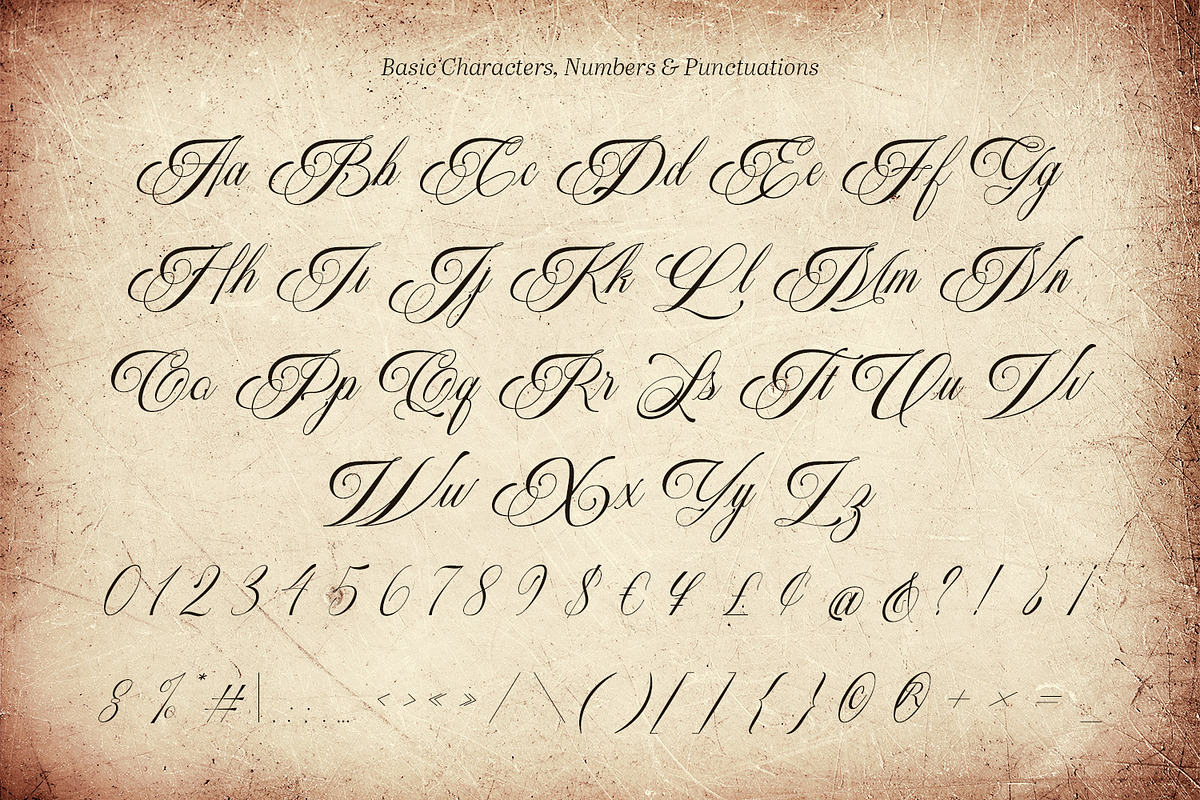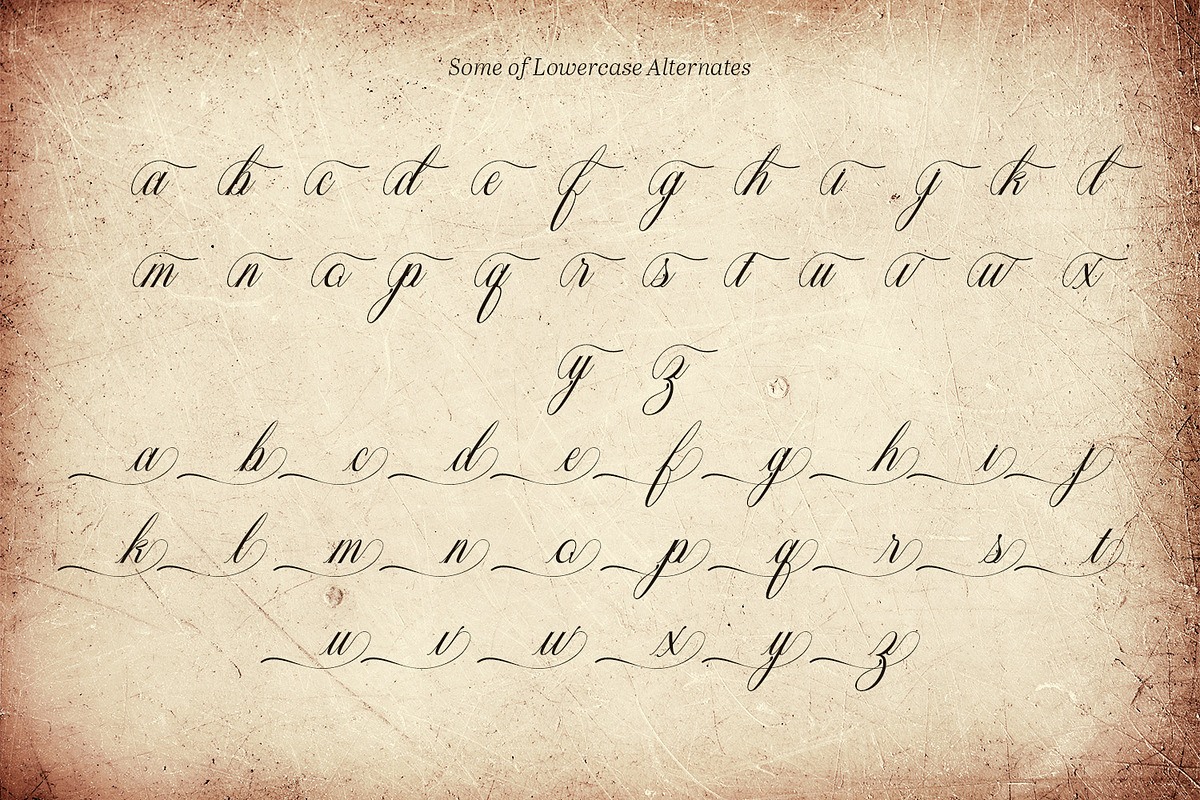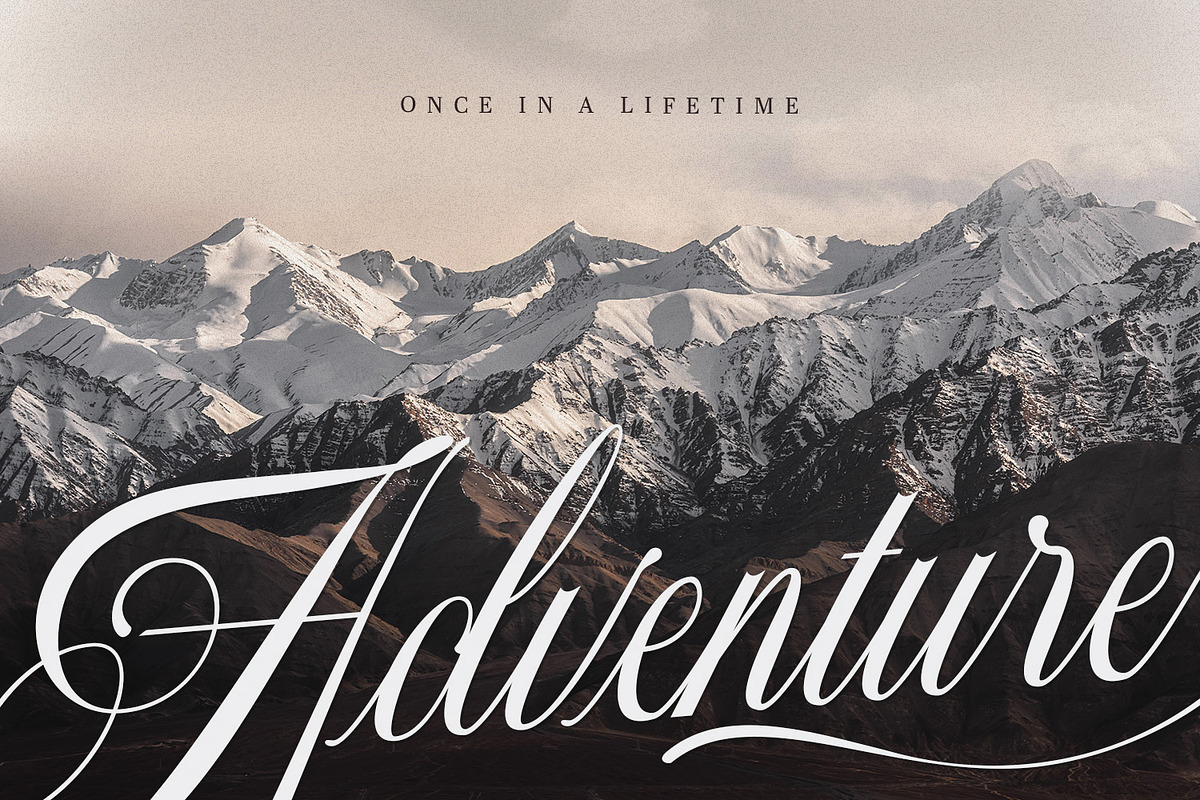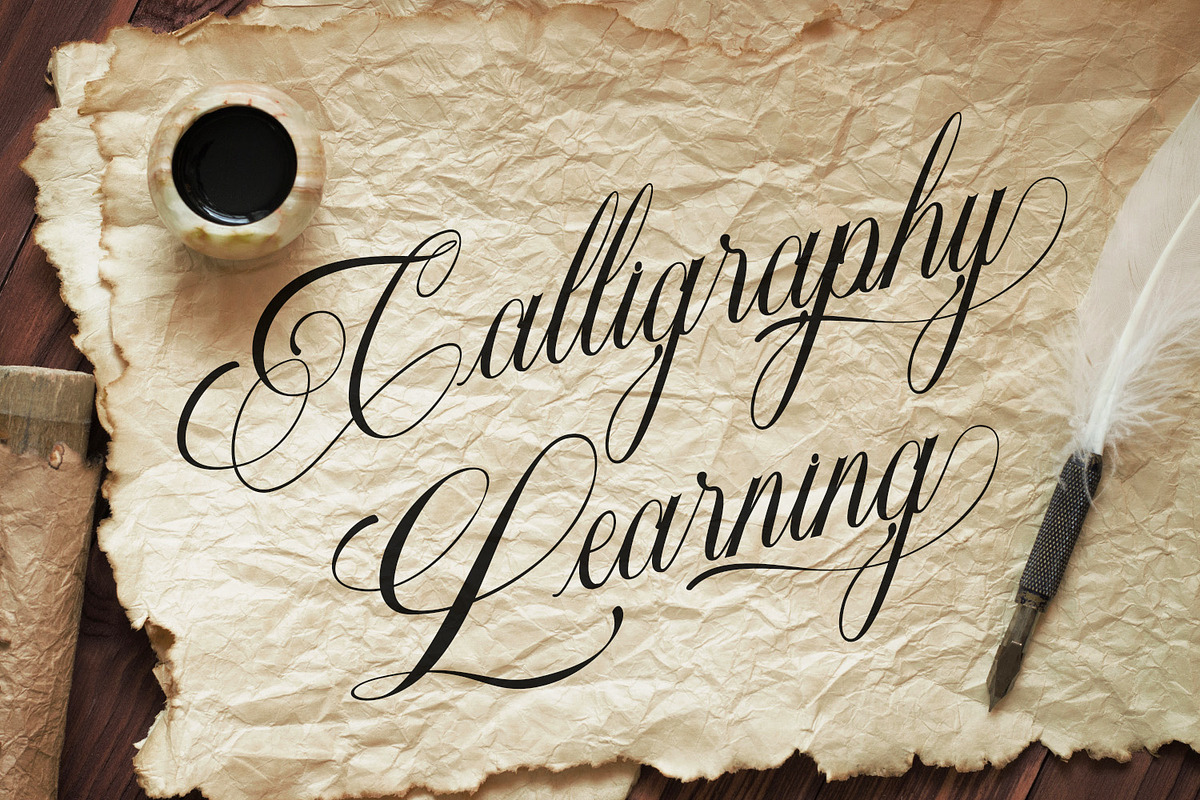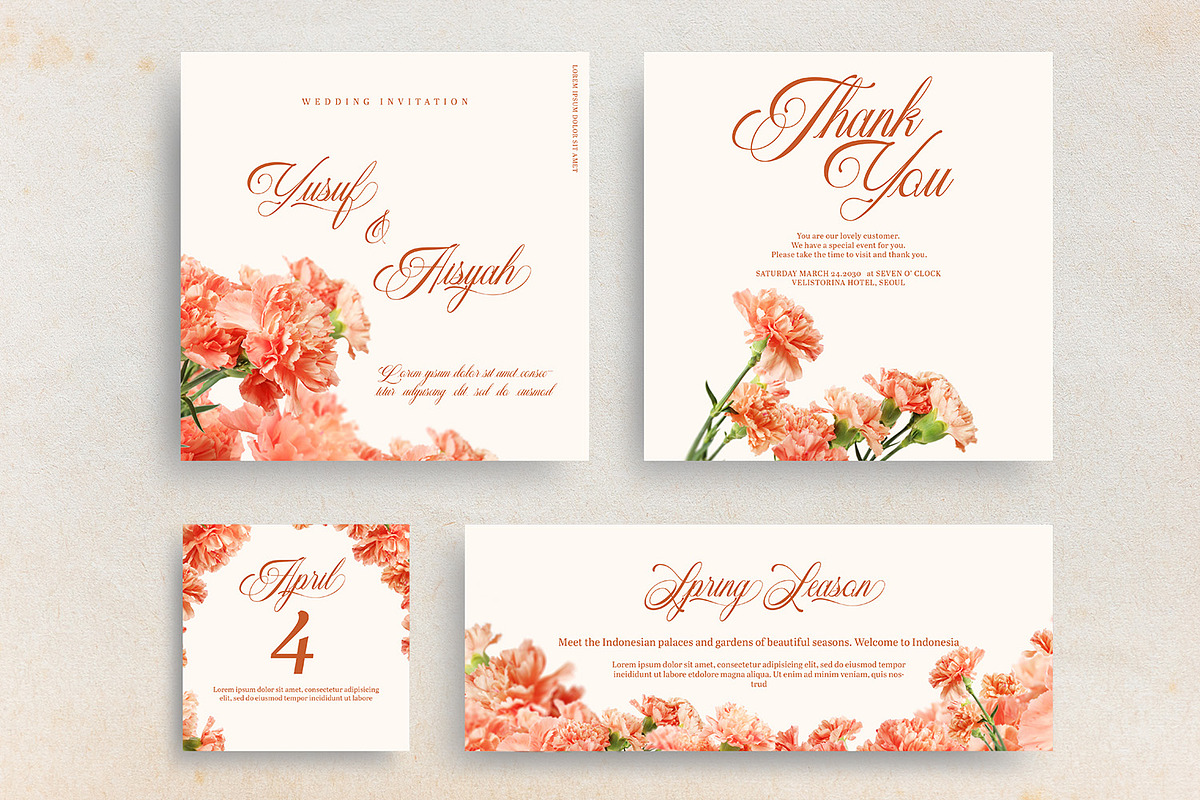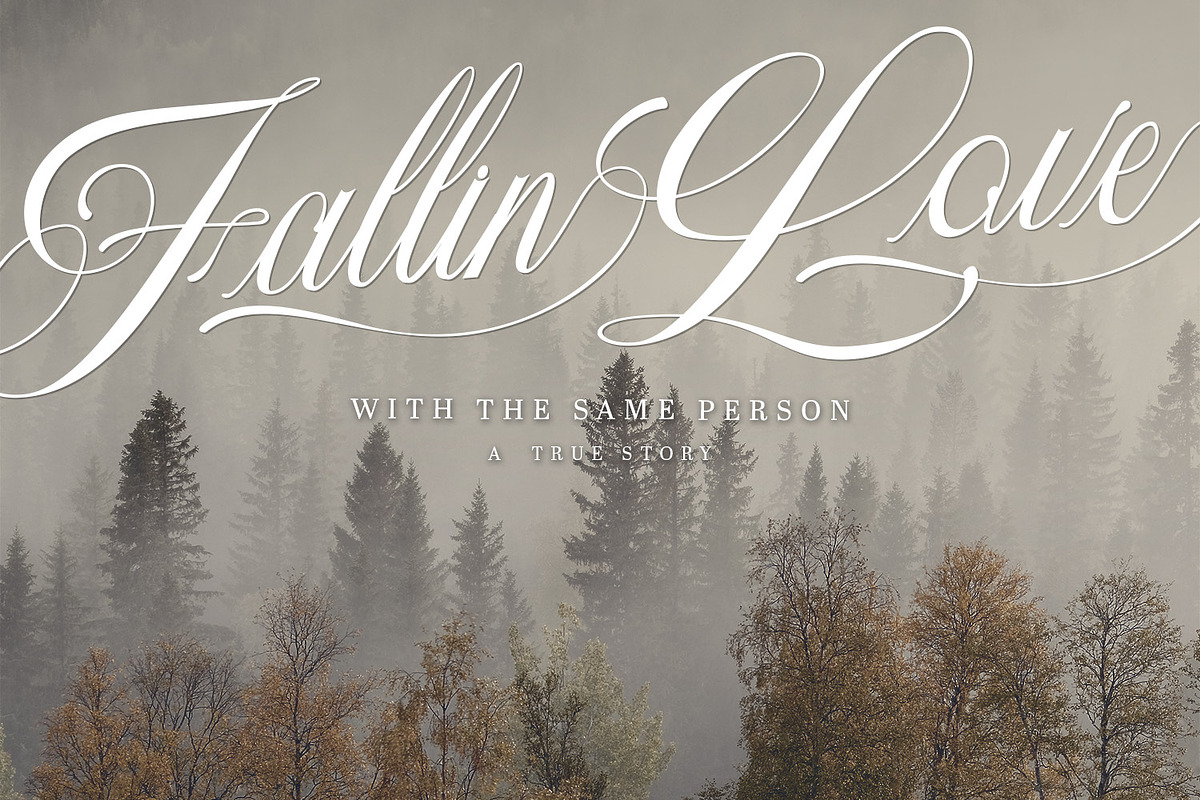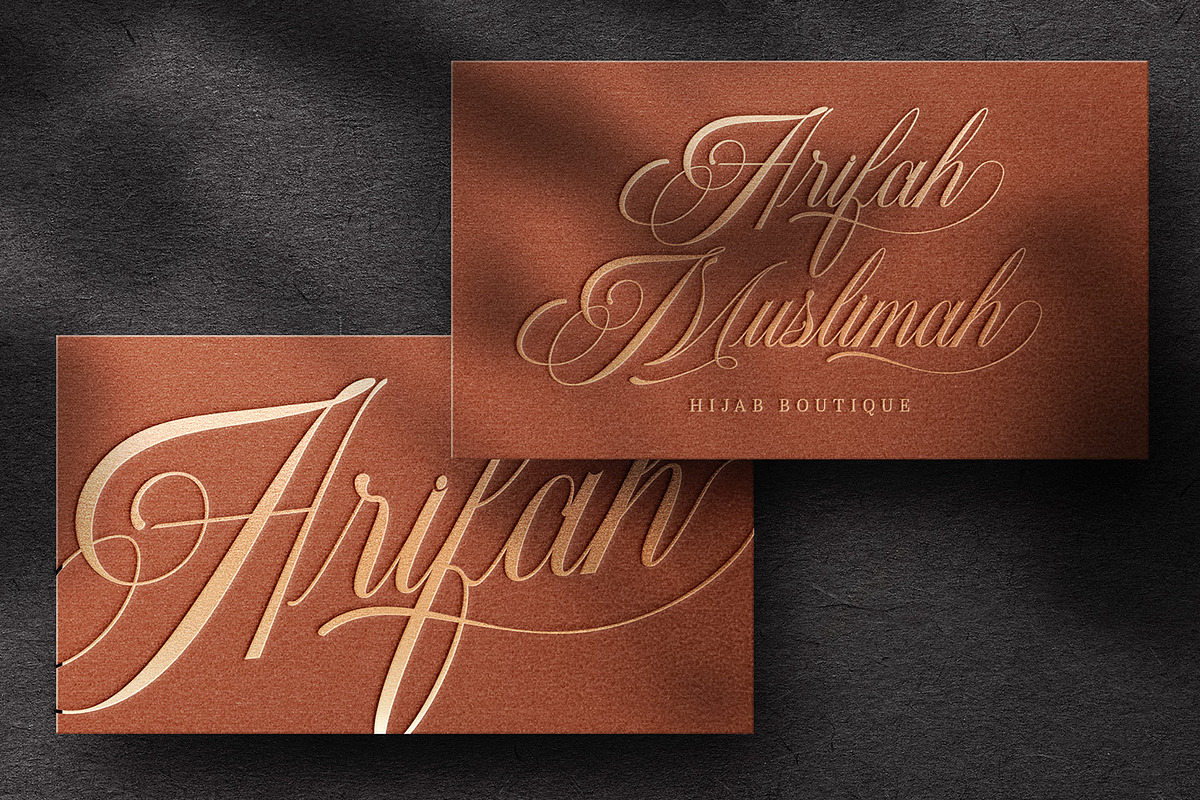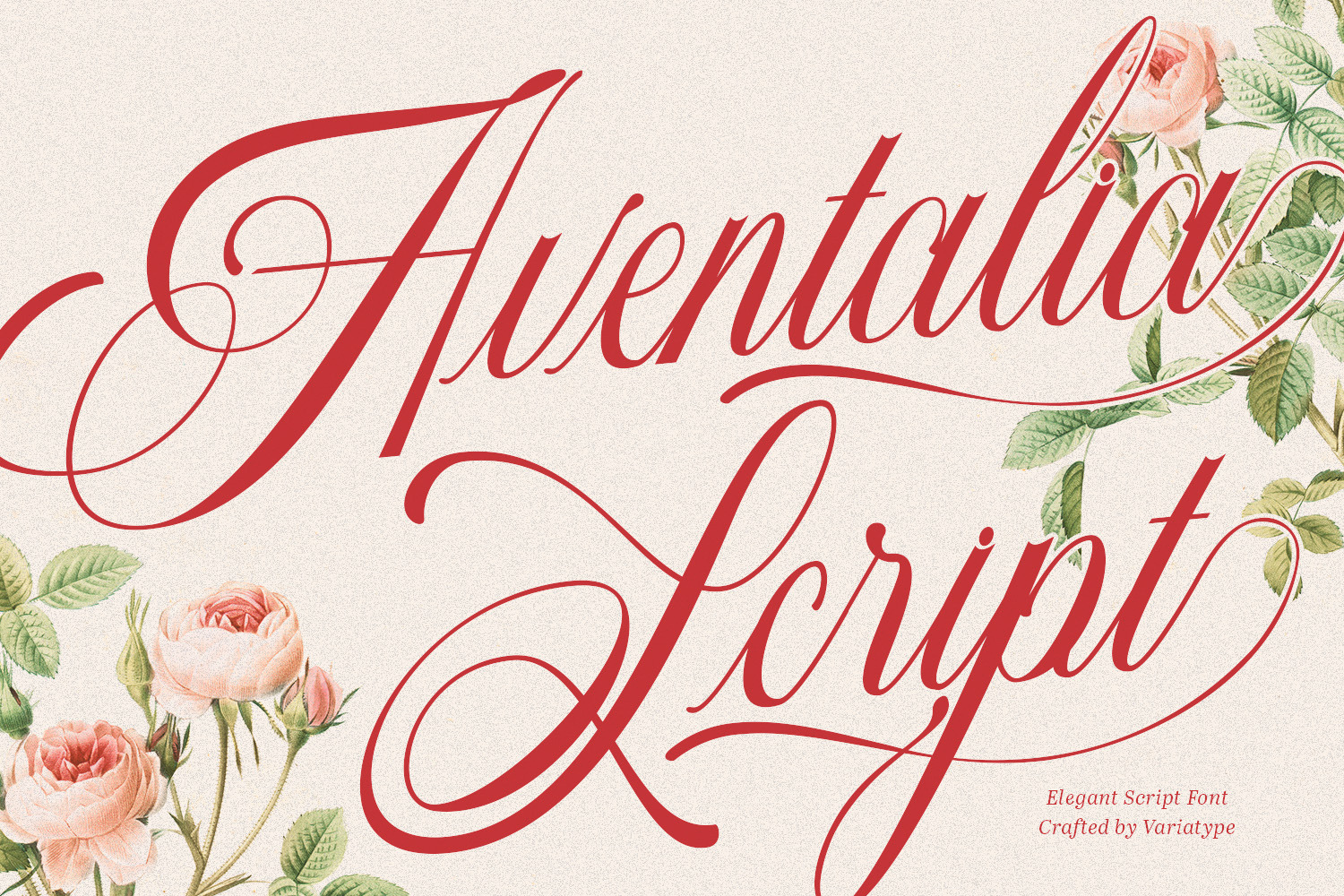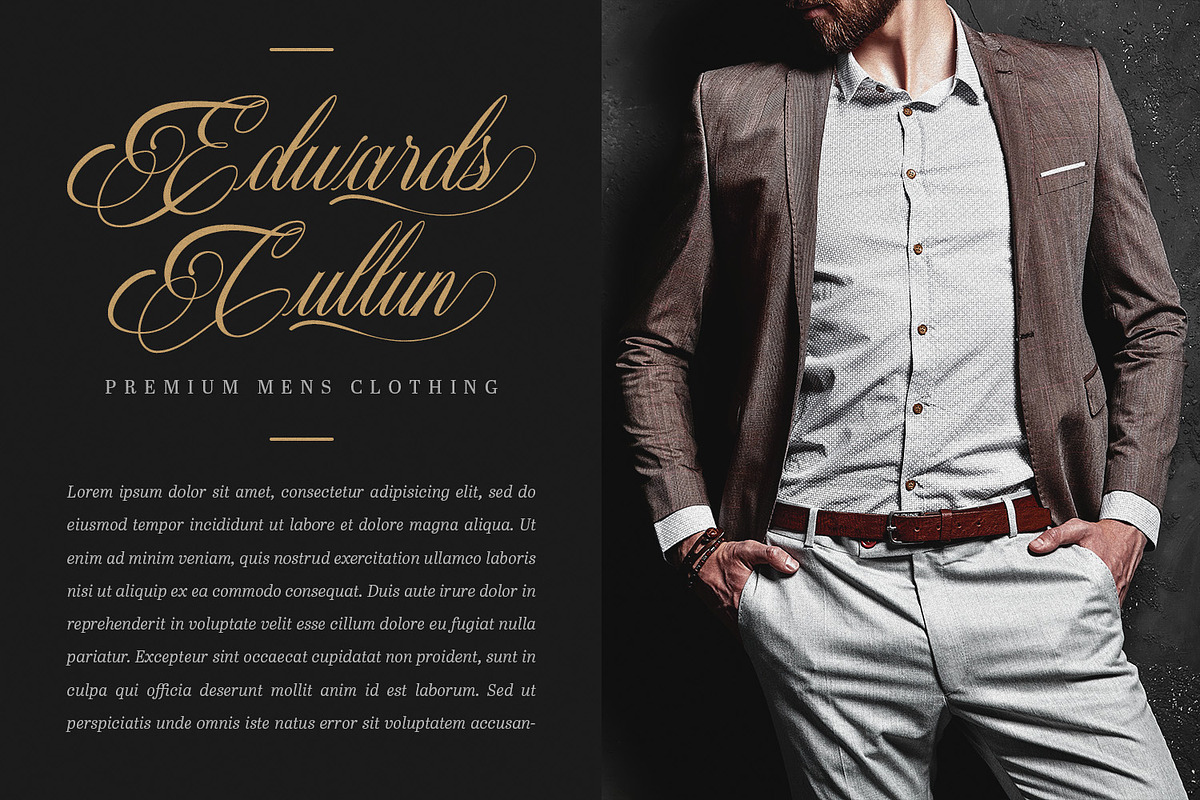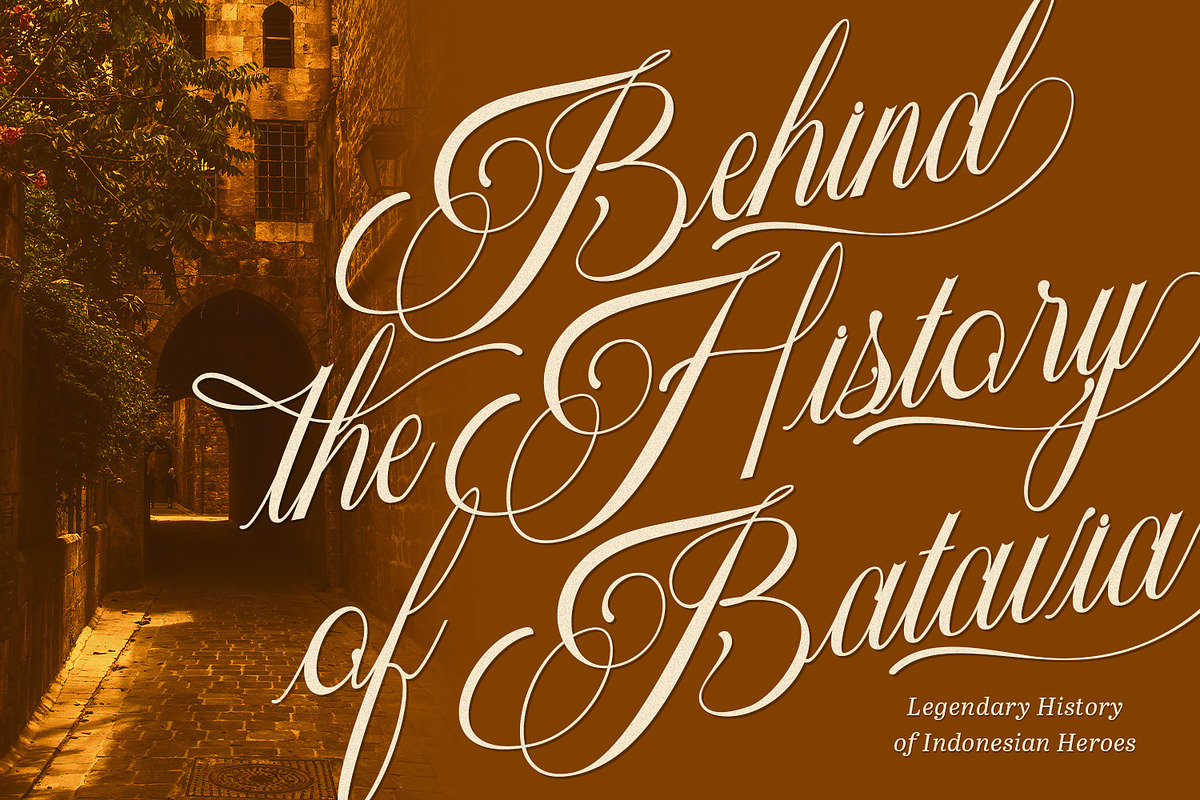
Aventalia Script - Elegant Font
Aventalia is an elegant calligraphy script font designed with flowing curves, refined strokes, and luxurious detailing. Suitable for adding timeless sophistication to any project. Its graceful letterforms and romantic charm make it ideal for wedding invitations, branding, packaging, logos, stationery, and any design that deserves a touch of classic beauty. Aventalia brings a sense of delicacy and artistry that elevates every visual it touches.
FONT FEATURES
Additional Accents
64 Languages
Kerning